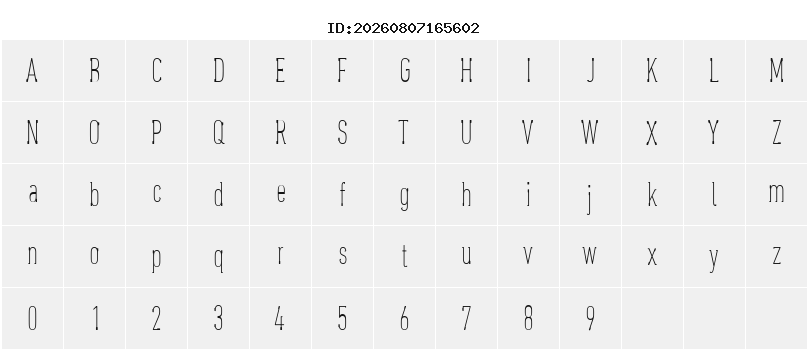
• Font Name: Oaxaqueña Tall
• Designer: Fernando Haro
• Manufacturer: deFharo
• Description: Oaxaqueña Tall es mi nueva tipografía decorativa condensada y delgada. Soy deFharo, diseñador gráfico freelance. Only for personal use / Sólo para uso personal. Licencia comercial disponible / Commercial license available www.defharo.com
Oaxaqueña Tall.ttf is a modern, elegant sans-serif font designed for ultimate readability and visual harmony. Perfect for branding, headlines, web design, and print materials.